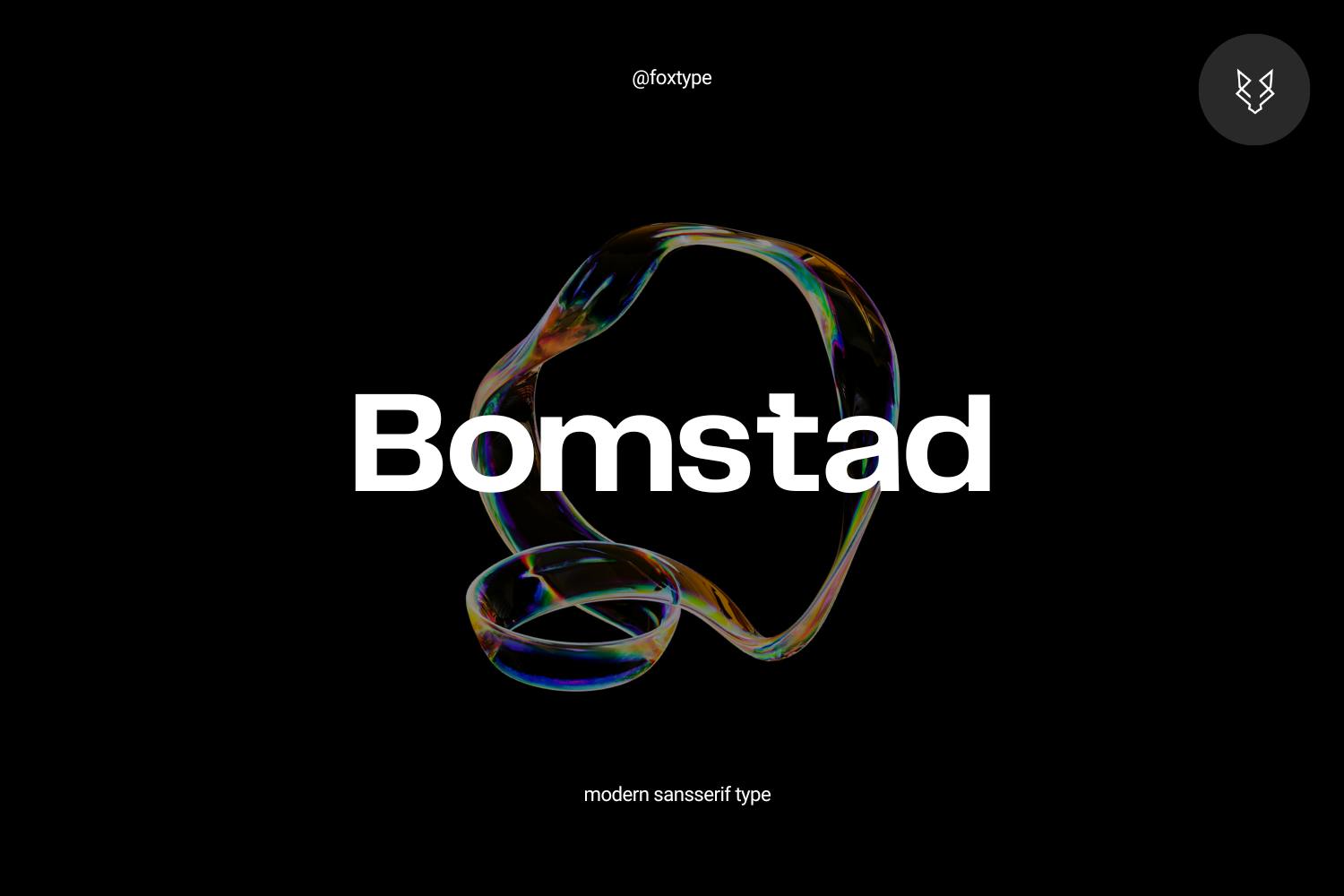
Bomstad Display Typeface Font
The Bomstad Display Typeface Font is perfect for bold magazine headlines, eye-catching poster designs, impactful advertising campaigns, strong brand identity projects, dramatic book covers, powerful social media graphics, commanding signage systems, striking packaging design, dynamic web headers, and attention-grabbing promotional materials.
What makes the Bomstad Display Typeface Font so exciting is its commanding presence and exceptional visual impact that demands immediate attention. This powerful typeface features strong character construction, distinctive letterforms, and impressive weight distribution that creates an unmistakable authority perfect for projects requiring maximum visual punch. The font's bold personality and contemporary edge make it an outstanding choice for brands seeking to communicate confidence, strength, and modern sophistication with undeniable presence.
The Bomstad Display Typeface Font family includes multiple weight variations, featuring Light, Regular, Medium, Bold, and Black options, plus condensed and extended versions. Each variation maintains the signature commanding appeal while offering different levels of visual intensity and width, providing designers with comprehensive flexibility for creating dynamic typographic hierarchies and impactful layouts.
The impressive design characteristics of Bomstad Display Typeface Font demonstrate expert display typography craftsmanship, with each character optimized for maximum legibility and visual strength at large sizes. The font's comprehensive character set includes multilingual support, stylistic alternates, professional punctuation, and special symbols, ensuring complete functionality for international campaigns and demanding commercial projects.
Specifically engineered for large-scale applications, this remarkable font maintains perfect clarity and striking presence across all display formats. From billboard advertising to digital banners, Bomstad Display Typeface Font performs exceptionally while preserving its distinctive character and commanding visual authority.